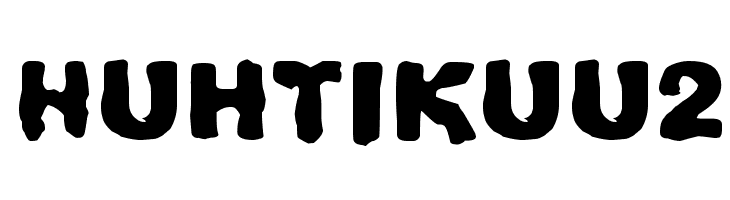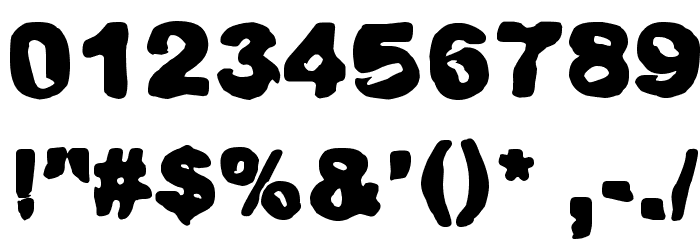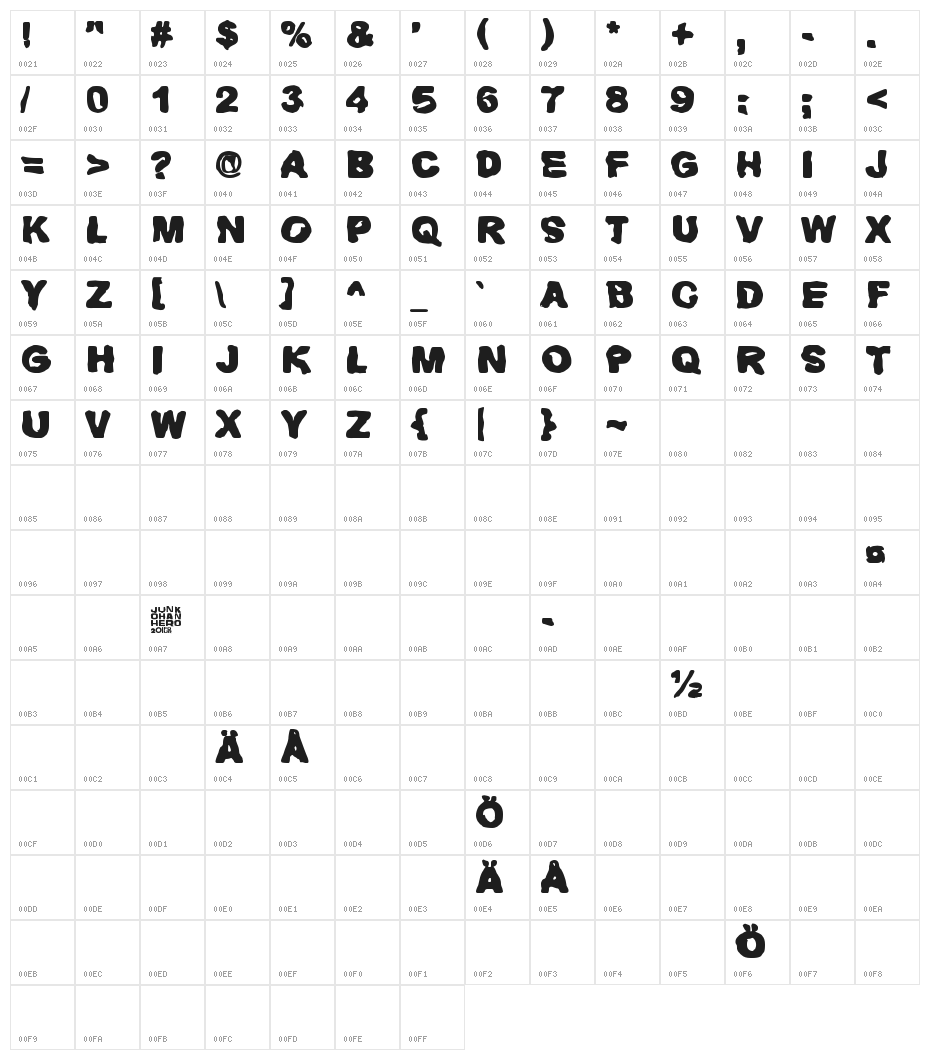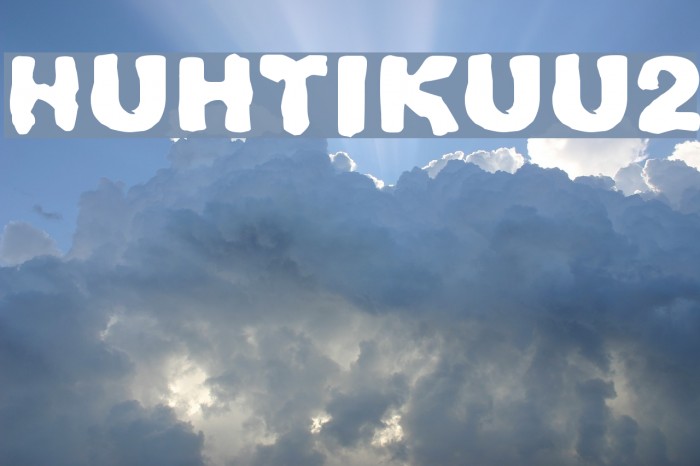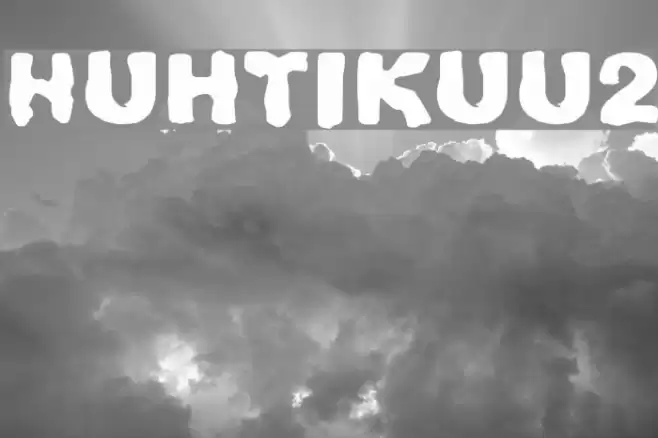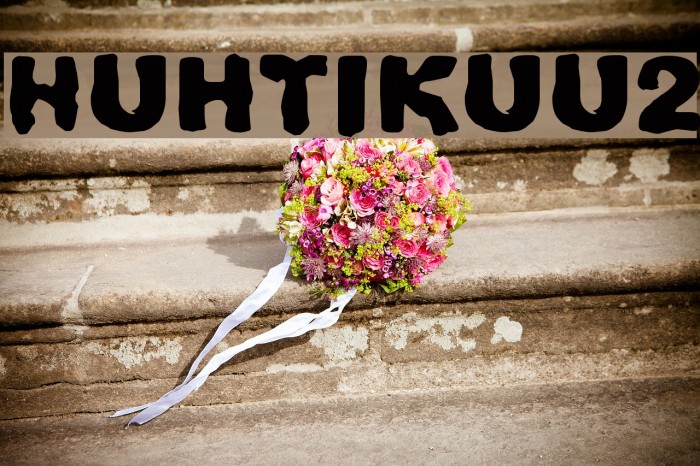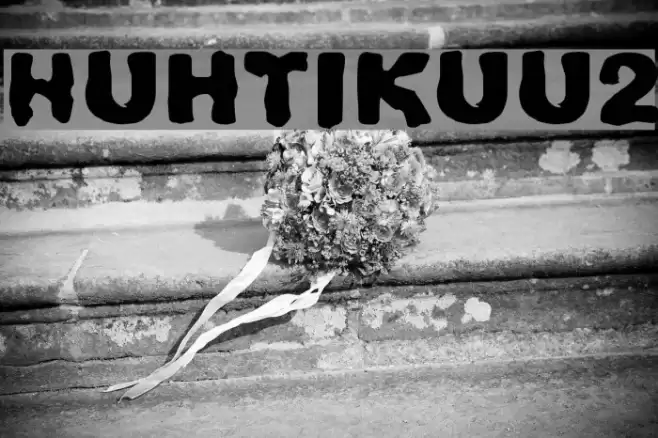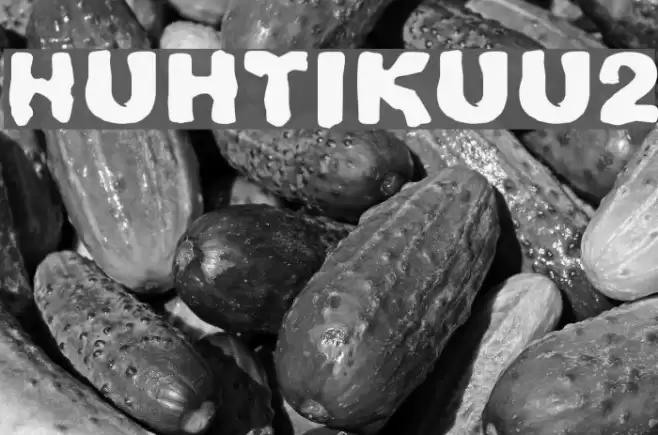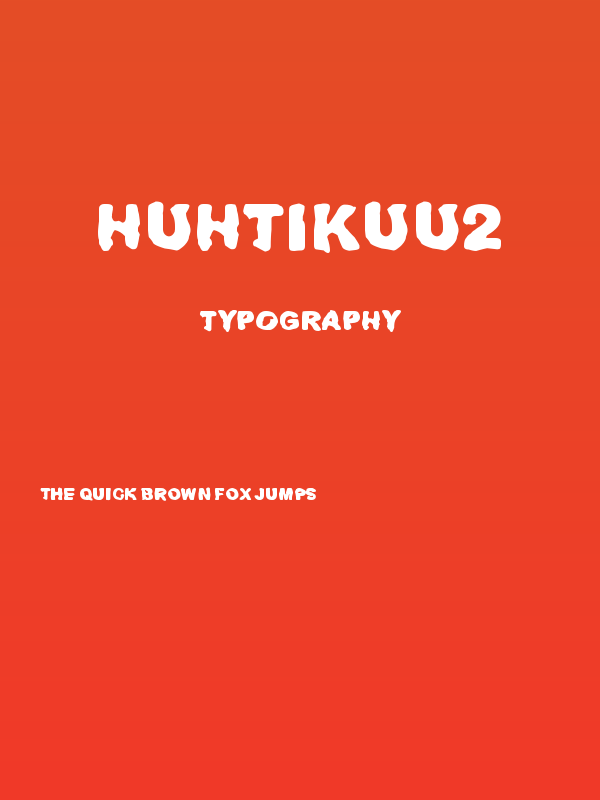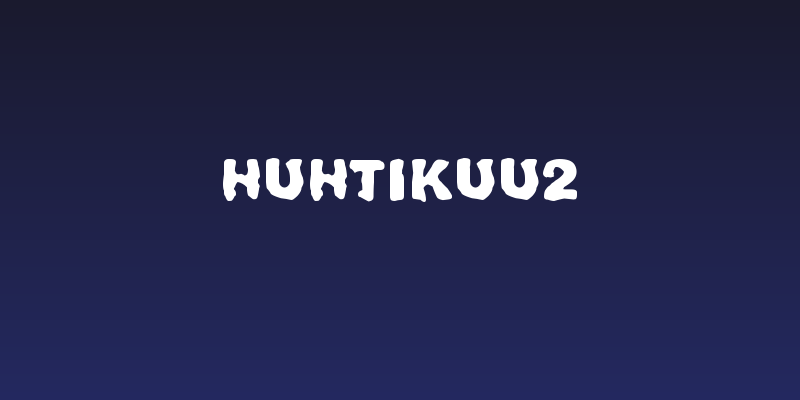
Huhtikuu2 Font
Huhtikuu2 Description
This font features a bold and playful design with a distinctly irregular and organic shape to each character. The letters have a hand-drawn appearance, with uneven edges and varying thicknesses that give it a lively and dynamic feel. The uppercase and lowercase letters maintain a consistent style, while the numbers and special characters complement the overall aesthetic. This font is ideal for projects that require a fun and informal touch, such as children's books, playful branding, or creative posters. Its unique style makes it stand out, ensuring that any text set in this font will capture attention.
| Overall Style | Playful, Hand-drawn |
| Proposed Projects | Children's books, playful branding, creative posters, informal invitations. |